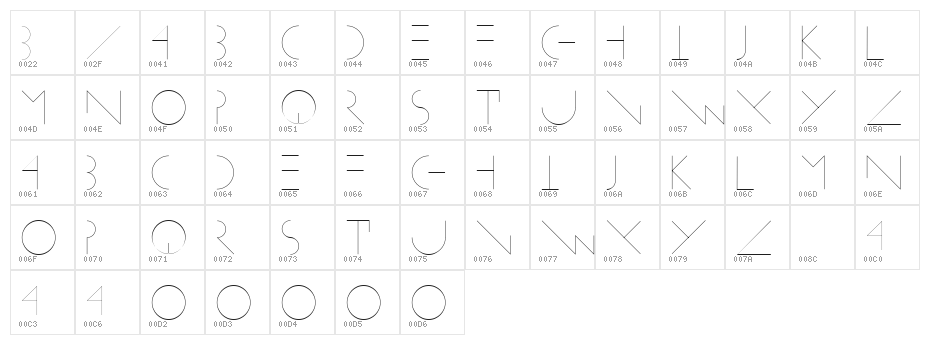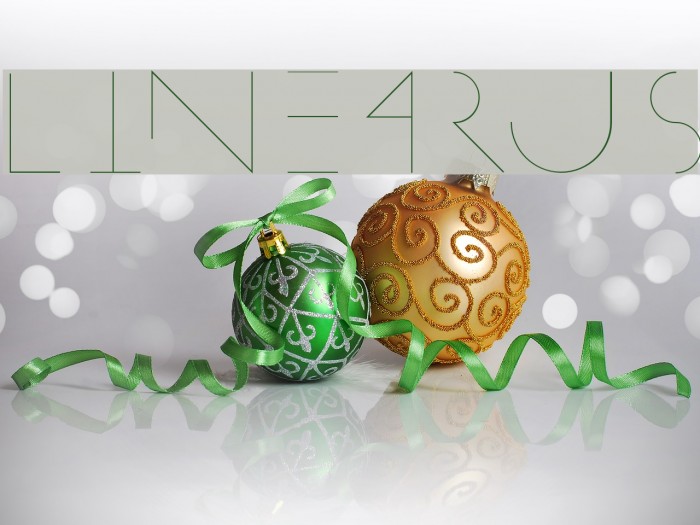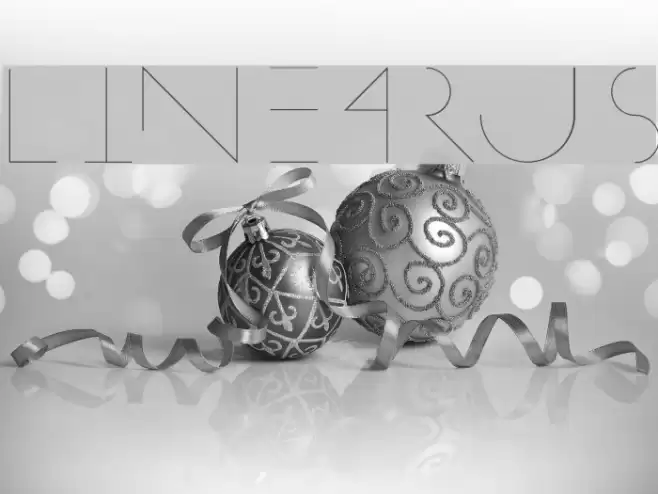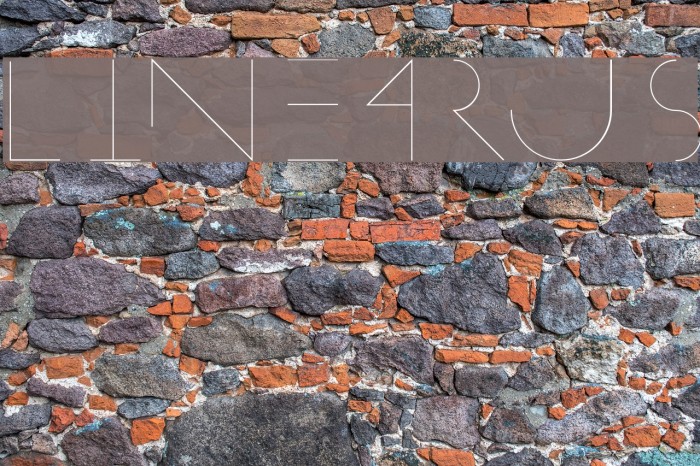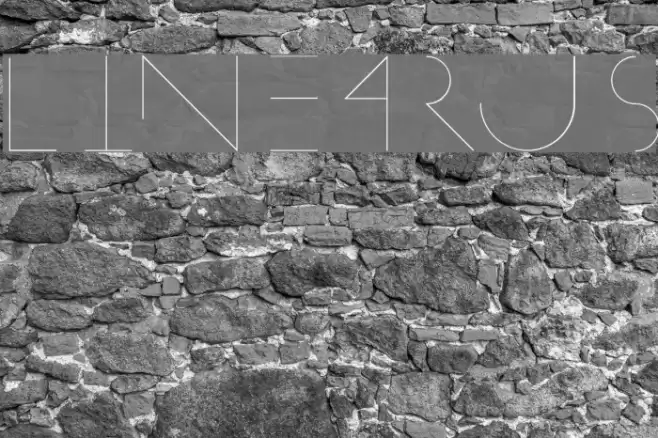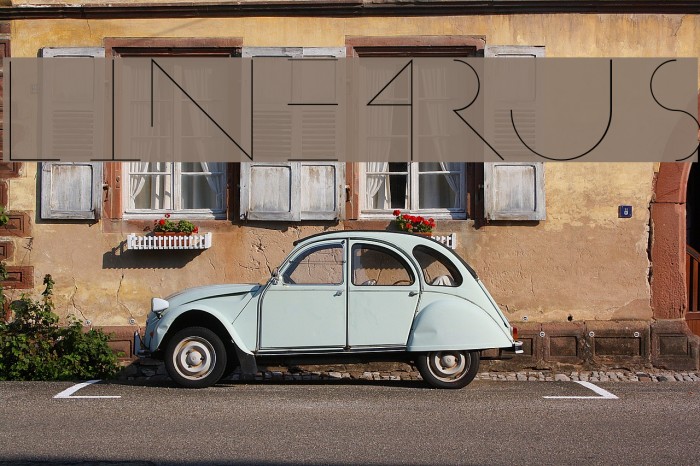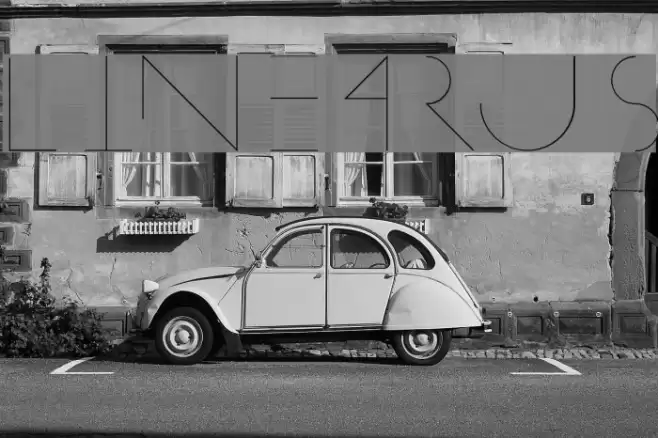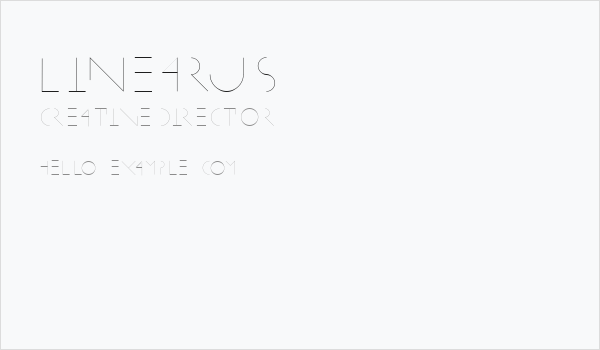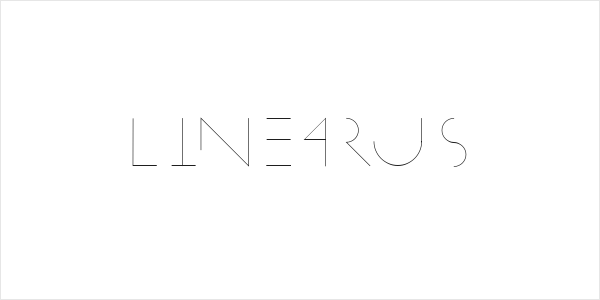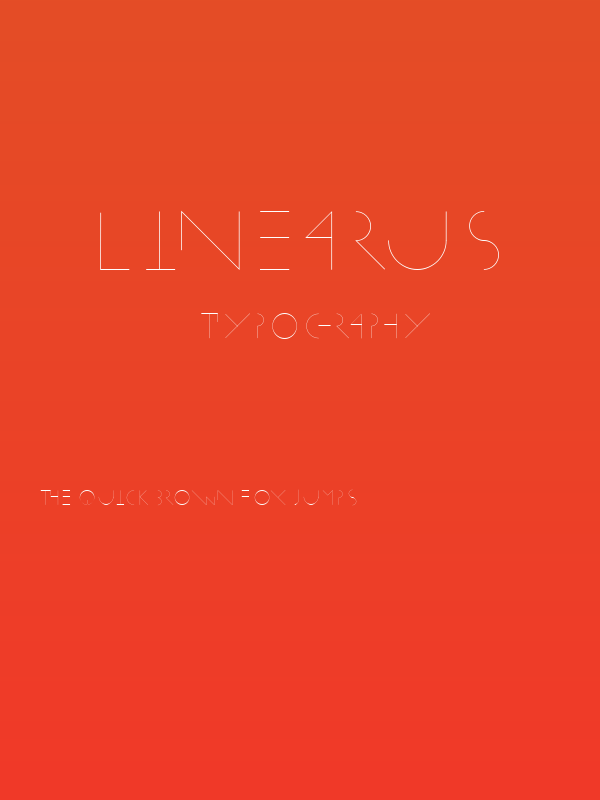
Linearus Font
Linearus Description
This font features a minimalist and geometric design, characterized by thin, linear strokes and a modern aesthetic. The letters are constructed with a focus on simplicity and symmetry, using straight lines and curves to create a clean and uncluttered appearance. The uppercase and lowercase letters maintain a consistent style, with a uniform stroke width that enhances readability while preserving an elegant look. The numbers and special characters are designed to match the overall style, ensuring a cohesive visual experience. This font is ideal for projects that require a contemporary and sophisticated touch.
| Use Case | Logos, Headlines, Branding |
| Proposed Projects | Ideal for branding, logos, modern web design, and editorial layouts. |